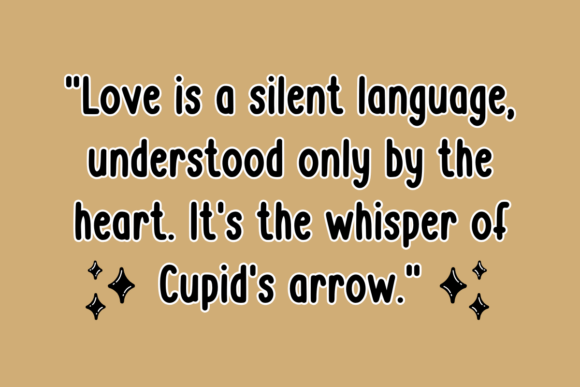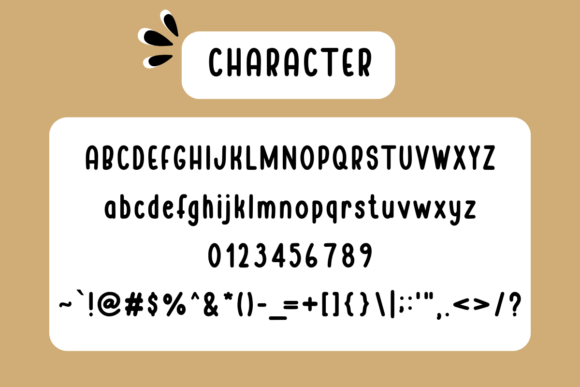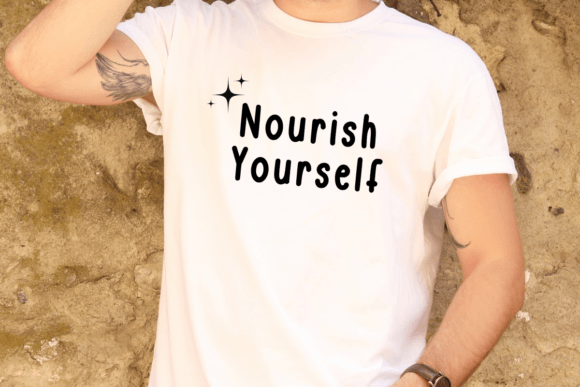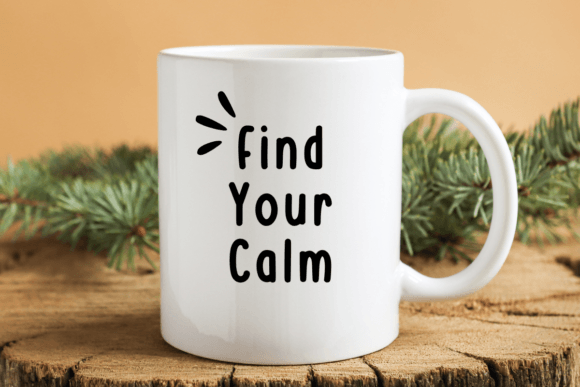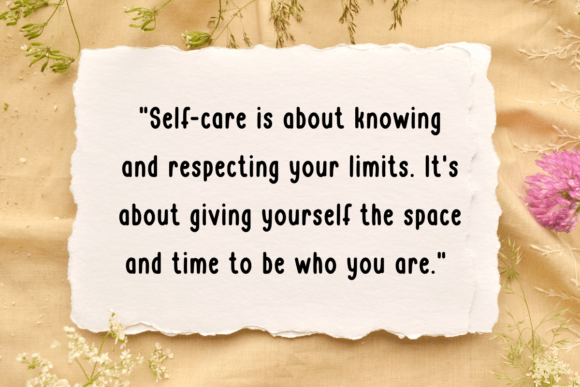
Cupid’s Whisper Font: The Playful Sans-Serif for Creative Projects
Are you a designer, crafter, or DIY enthusiast looking for a font that adds a touch of charm and playfulness to your projects? Look no further than Cupid’s Whisper Font! This versatile sans-serif font is perfect for a wide range of uses, from personal to professional, and is sure to delight both kids and adults alike.
Endless Possibilities for Creative Projects
Cupid’s Whisper Font is an excellent choice for various creative projects, including:
- Memorandums and journals
- Notes and planners
- KDP interiors and printables
- Scrapbooks and diaries
- Daily planners, notepads, and calendars
- To-do lists and workbooks
- Templates and weekly/monthly planners
- Notebook paper and more!
Perfect for Teachers and Educators
Teachers and educators will love Cupid’s Whisper Font for creating engaging and interactive materials. Use it to design:
- Lesson plans and worksheets
- Classroom decorations and displays
- Activity sheets and quizzes
- Report cards and progress reports
Ideal for Daily Planners and Organizers
Stay organized and stylish with Cupid’s Whisper Font in your daily planners, journals, and notebooks. It’s perfect for:
- Creating a vision board or goal setting pages
- Designing a daily or weekly schedule
- Adding a personal touch to your planner or journal
Adding Charm to Your Projects
Cupid’s Whisper Font is designed to add a touch of whimsy and charm to your projects. Its playful sans-serif design makes it perfect for:
- Creating fun and colorful invitations and greeting cards
- Designing engaging and interactive worksheets and activity sheets
- Adding a personal touch to your journal or diary
Versatile and Stylish
Cupid’s Whisper Font is a versatile and stylish font that can be used for both personal and professional projects. Its clean and modern design makes it perfect for:
- Branding and marketing materials
- Presentations and reports
Why Choose Cupid’s Whisper Font?
Here are just a few reasons why Cupid’s Whisper Font is the perfect choice for your creative projects:
- Unique and playful design
- Versatile and stylish
- Easy to read and use
- Perfect for personal and professional projects
Cupid’s Whisper Font is a versatile and stylish sans-serif font that’s perfect for a wide range of creative projects. Whether you’re a designer, crafter, or DIY enthusiast, this font is sure to delight. With its playful design and endless possibilities, Cupid’s Whisper Font is the perfect addition to your font collection.